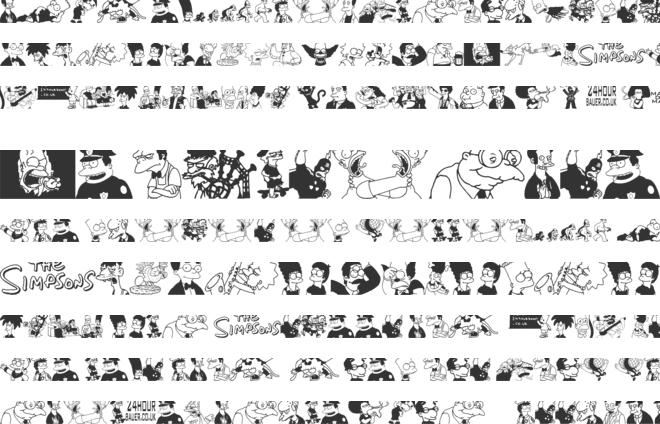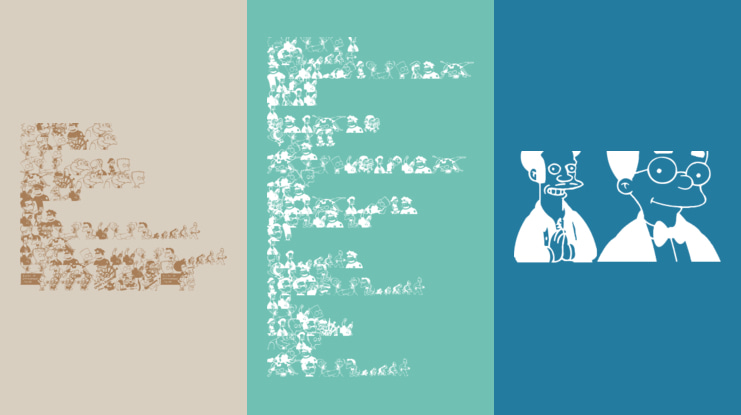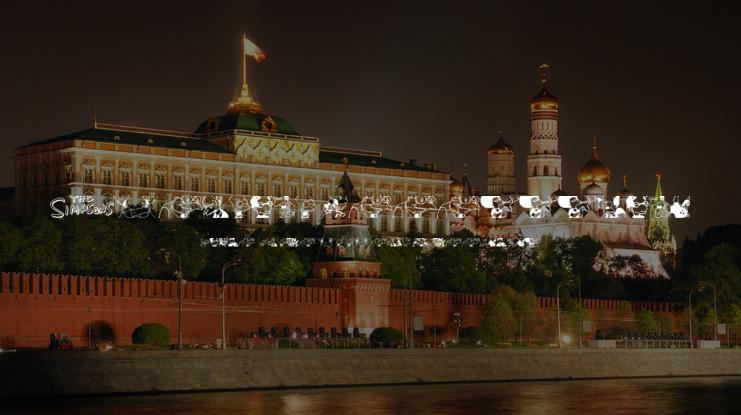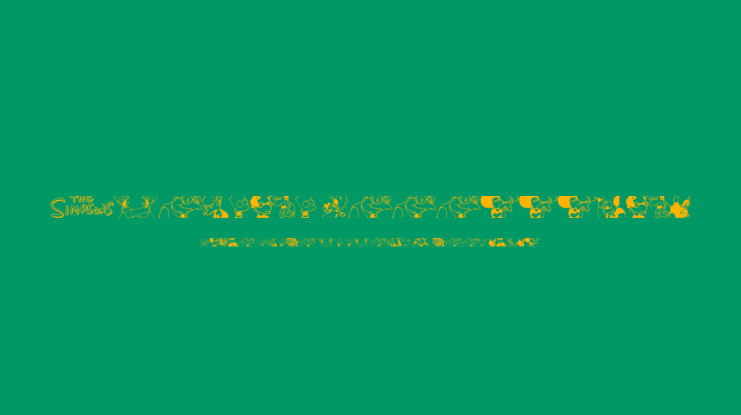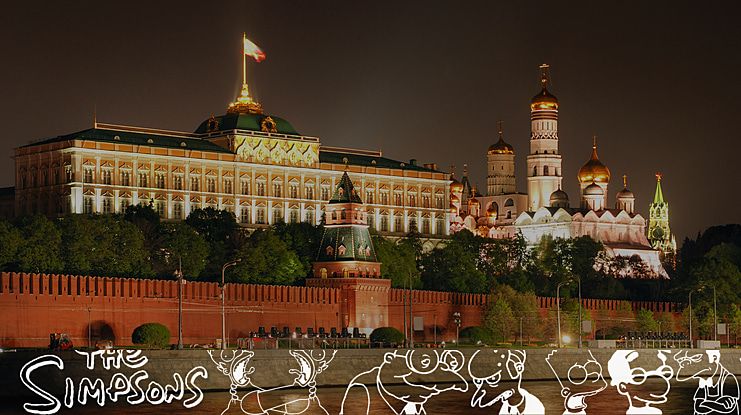
Simpsons Mmmm...Font
Simpsons Font: Upper and lower cases, numbers and other keys feature over 80 Simpsons pictures. In the words of Monty Burns...Excellent!!!